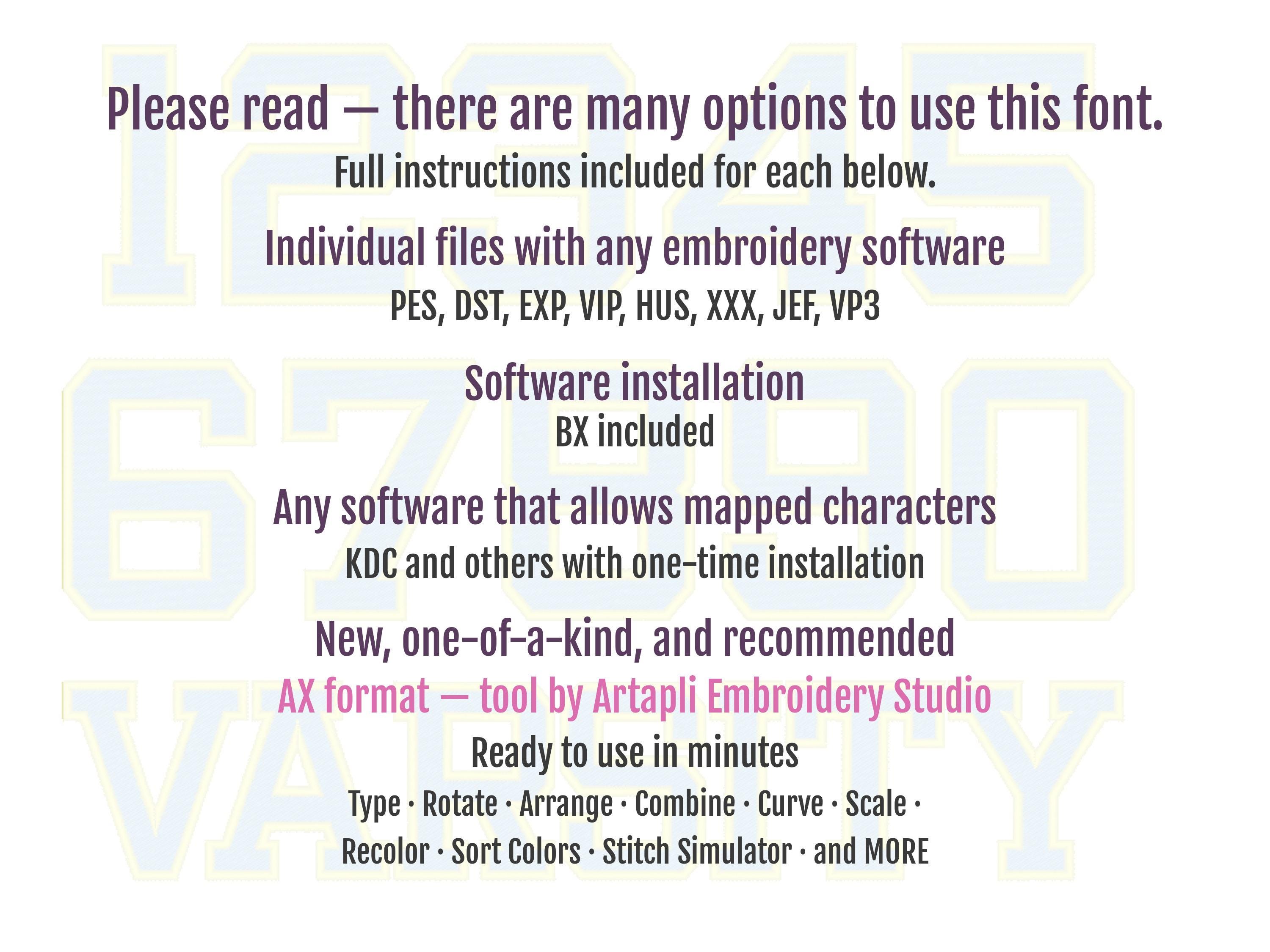
Mini Varsity Collegiate type Font machine embroidery designs - capital letters and numbers 2 colors fill stitch and outline alphabet, BX included
Entire alphabet capital letters A-Z, numbers 0-9.